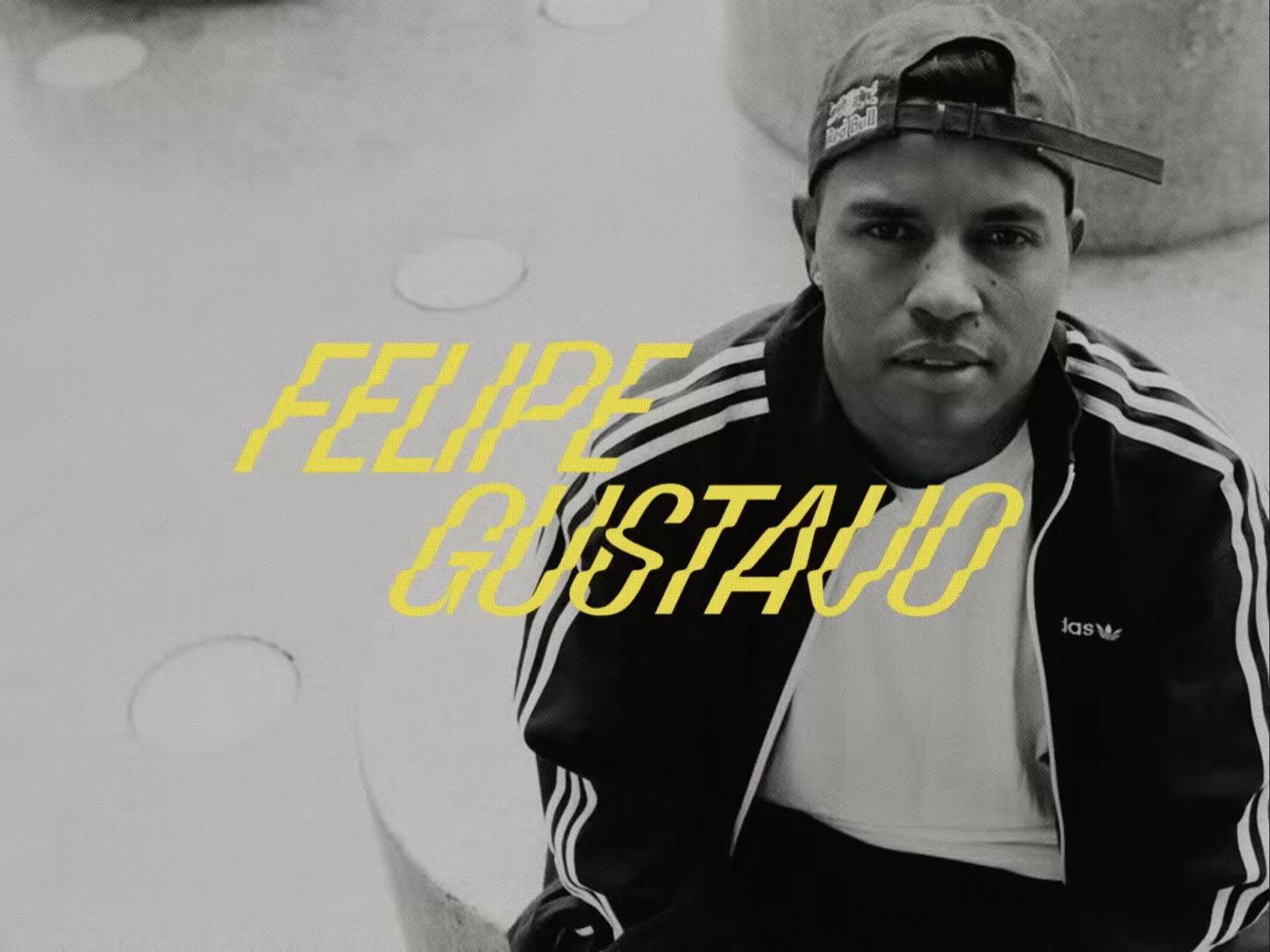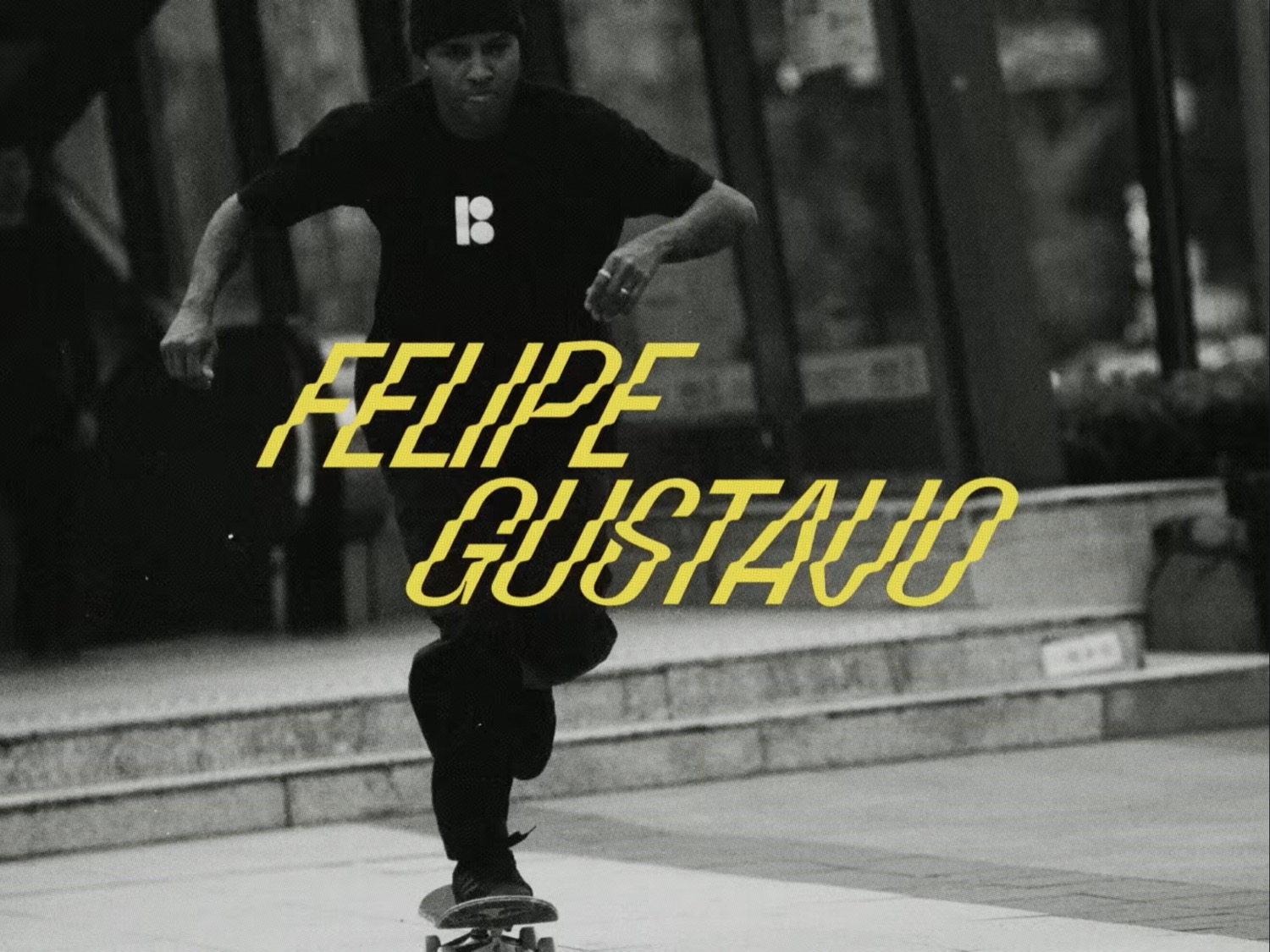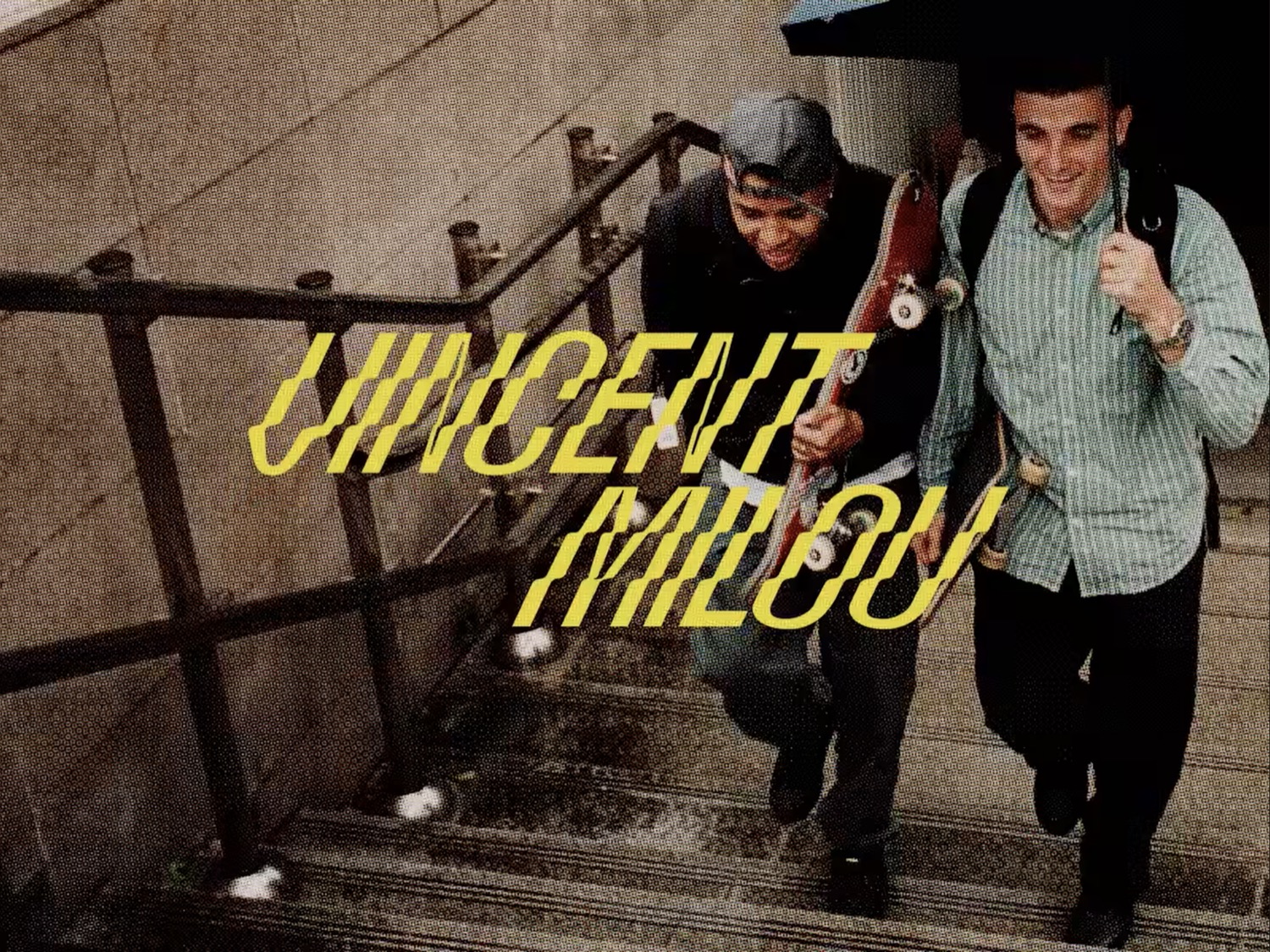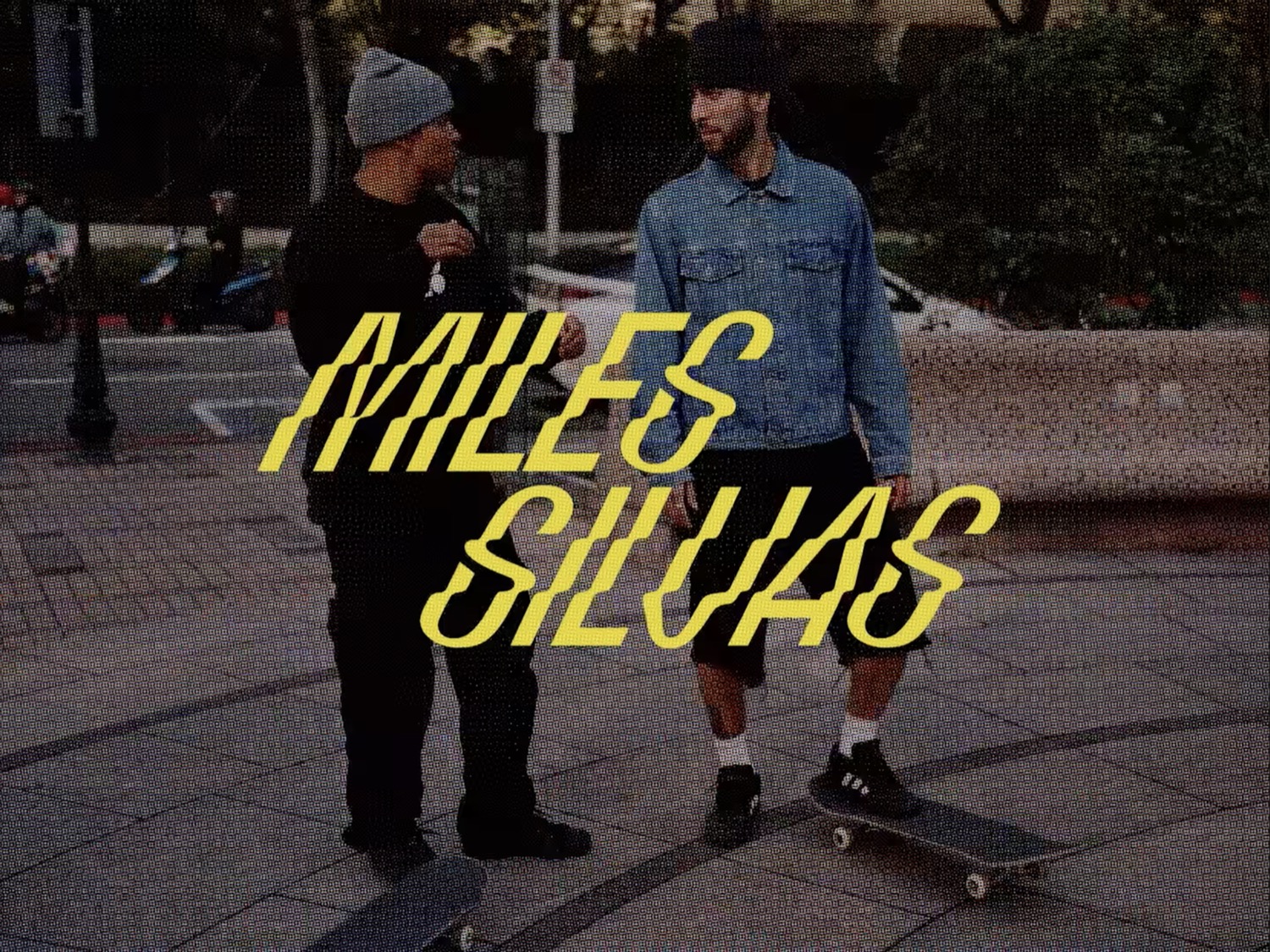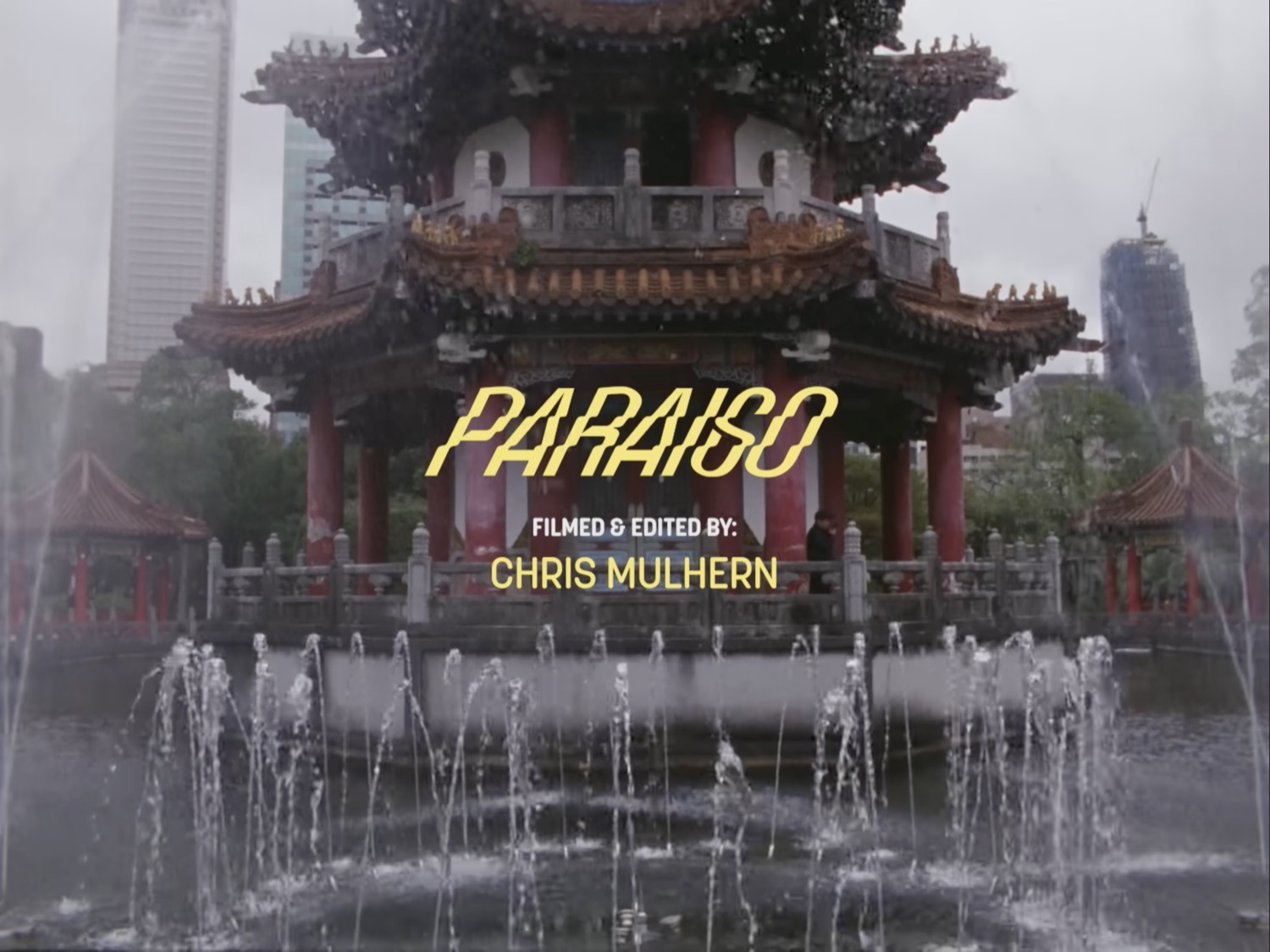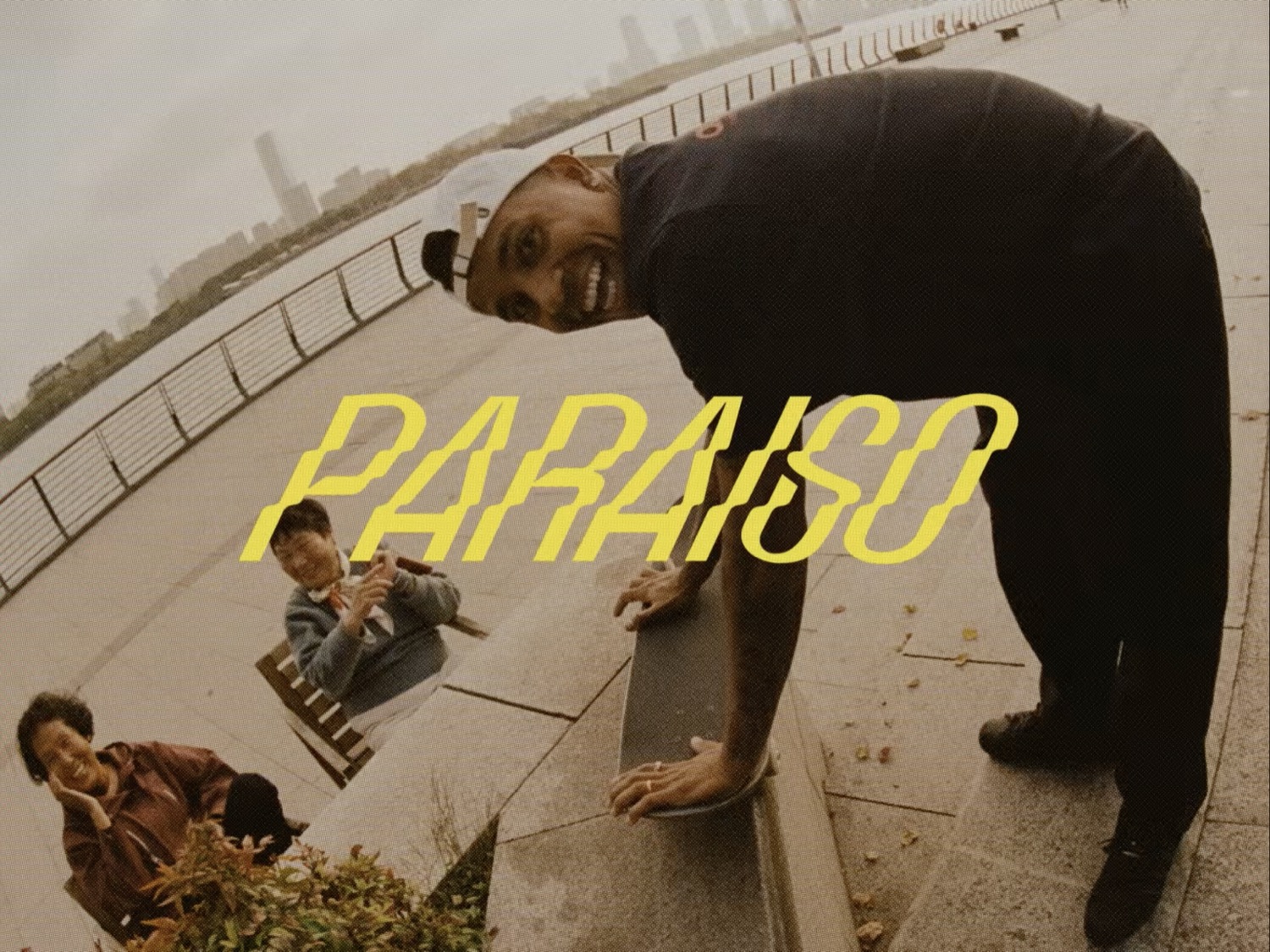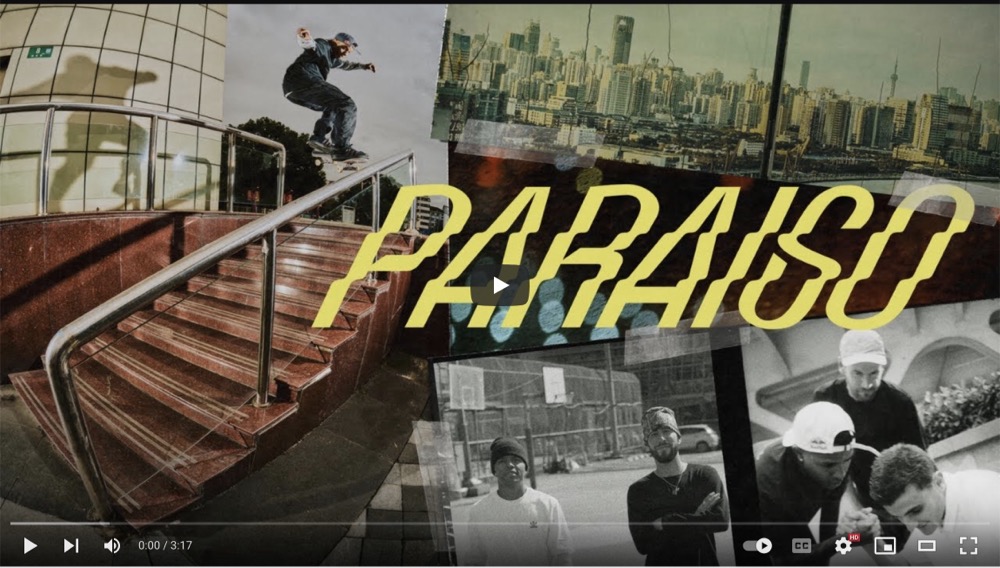
Adidas Skateboarding Paraiso video titles
by Adidas Skateboarding
Velzyland in use by Adidas Skateboarding’s “Paraiso” video, featuring Felipe Gustavo, Vincent Milou, and Miles Silvas. Filmed and edited by Chris Mulhern.
Velzyland is typeset in a bright yellow hue which stands out nicely from the mix of cinematic color and high contrast black and white videography.